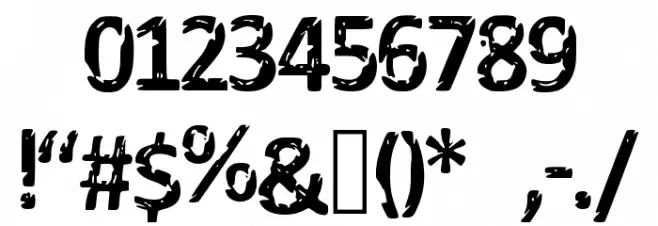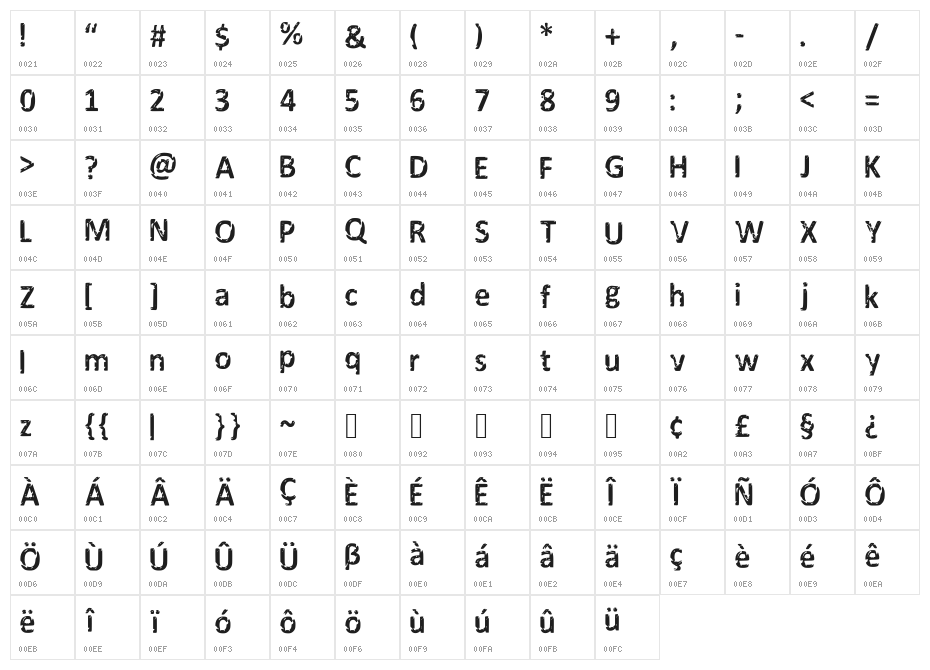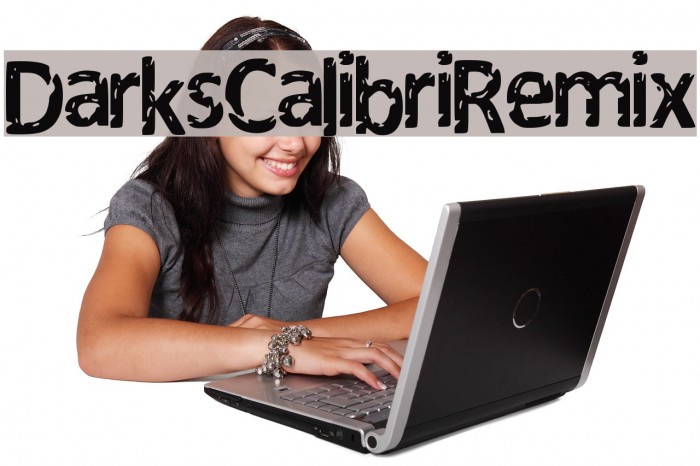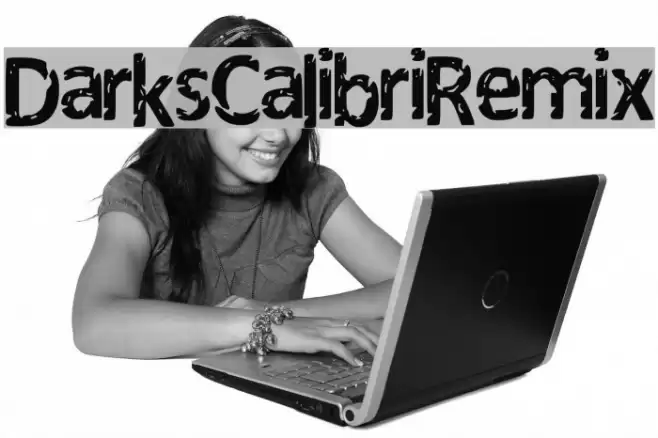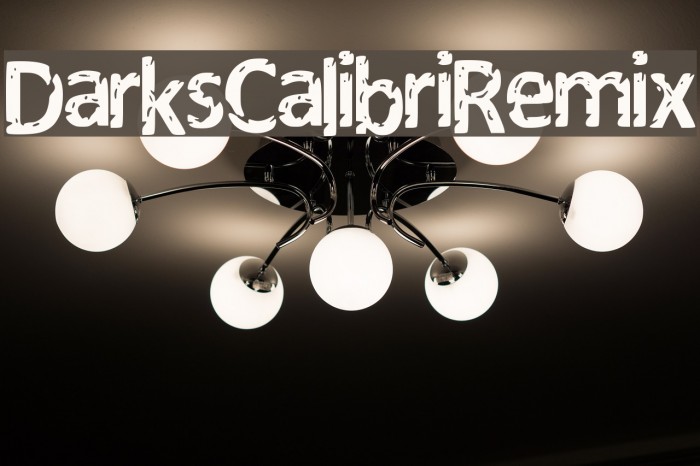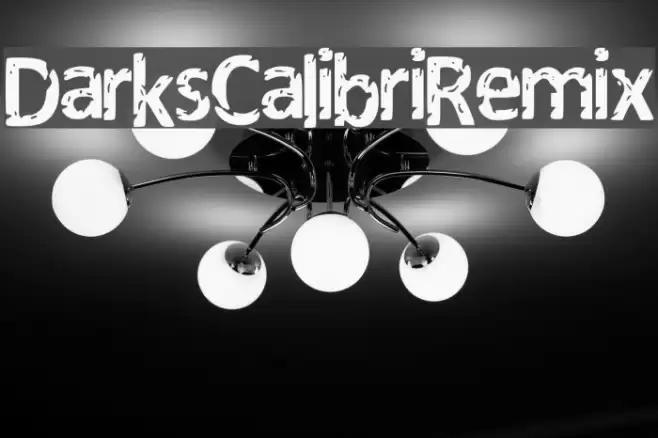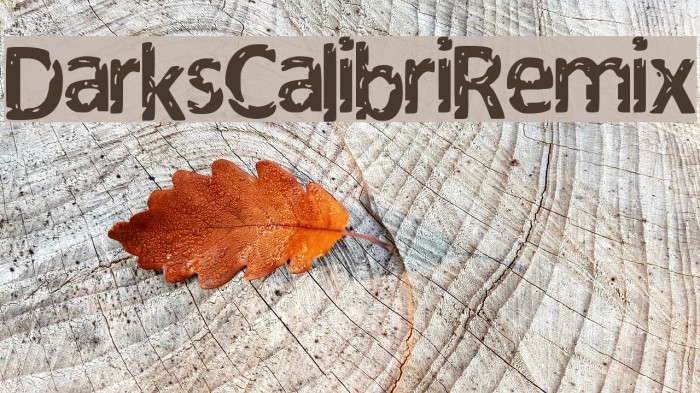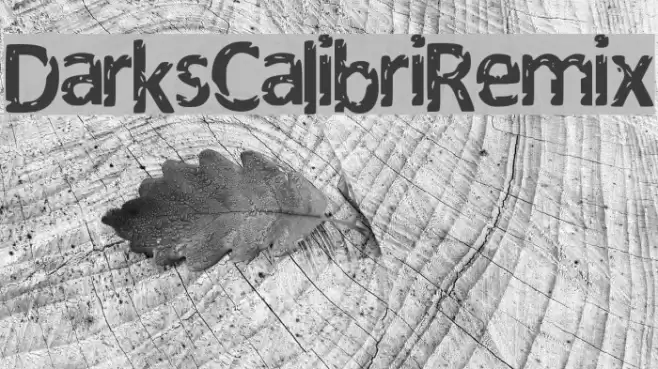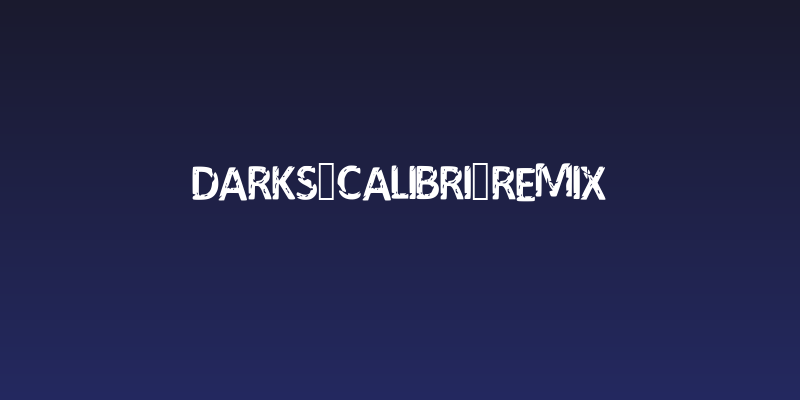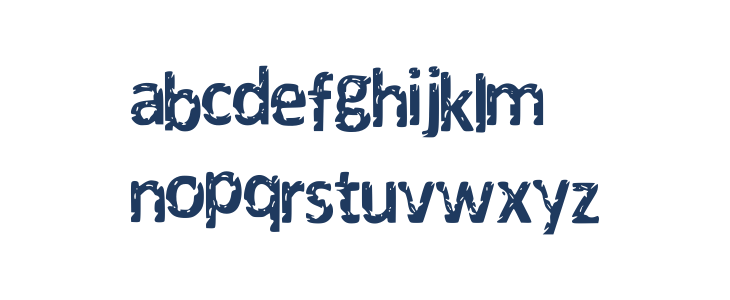
Darks_Calibri_Remix Font
Darks_Calibri_Remix Description
This font features a bold, distressed style with a unique, grungy texture that gives it a rugged and edgy appearance. The characters are uppercase and lowercase letters, numbers, and a variety of special symbols, all maintaining a consistent distressed look. The font's design incorporates irregularities and rough edges, creating a sense of movement and energy. Its boldness ensures high visibility, making it suitable for impactful designs. The font's distressed nature adds a layer of complexity and interest, making it ideal for projects that require a raw, authentic feel.
| Overall Style | Grunge, Edgy |
| Proposed Projects | Ideal for posters, album covers, urban-themed designs, and branding that requires an edgy, raw aesthetic. |